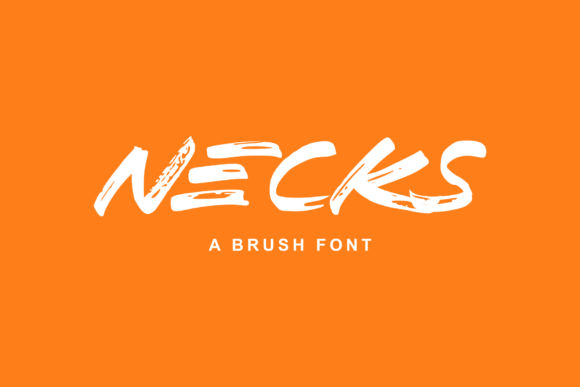
Prepare yourself for the extraordinary Necks Font, an unparalleled display typeface that will ignite your designs with brilliance. This masterpiece, meticulously crafted with a brush pen's finesse by the brilliant mind of andikafez, is a visual feast that commands attention and sparks inspiration.
Necks Font is not just another font; it's a key that unlocks the door to exceptional designs. Its meticulously designed curves and dynamic strokes embody the essence of individuality and creativity. Whether you're a seasoned designer or just starting your artistic journey, this font will elevate your projects to new heights.
Imagine your logos adorned with the captivating presence of Necks Font. Its bold and distinctive character will instantly set your brand apart, making a lasting impression on your audience. Or envision your headlines and posters infused with its vibrant energy, captivating readers with their undeniable allure.
Necks Font is more than just a collection of letters; it's an expression of your creativity, a reflection of your unique style. Its versatility knows no bounds, seamlessly adapting to a myriad of design concepts. From elegant invitations to eye-catching social media graphics, this font will transform your ideas into unforgettable works of art.
So, why settle for ordinary when you can embrace the extraordinary? Download Necks Font today and unleash the full potential of your designs. Let its brush-like charm ignite your imagination and empower you to create masterpieces that defy expectations.